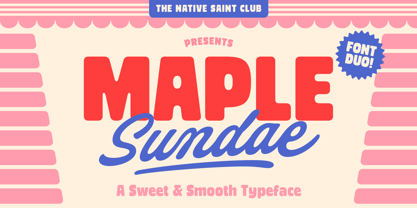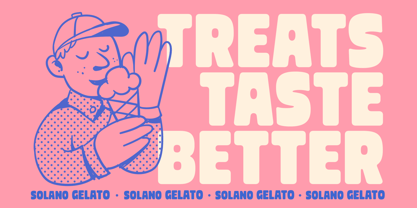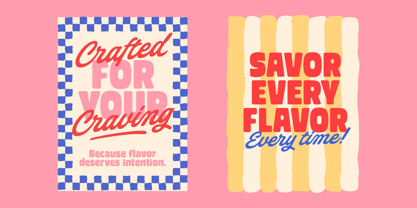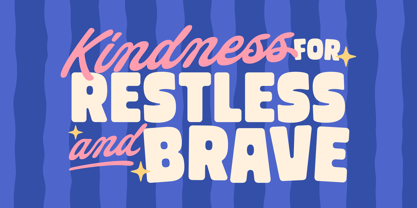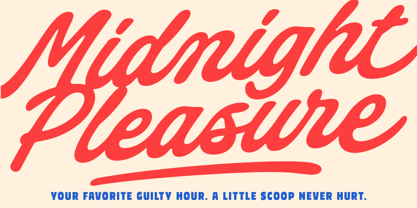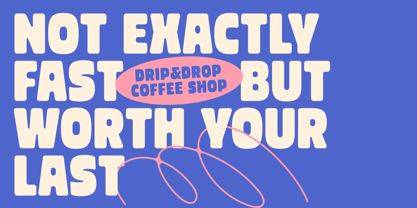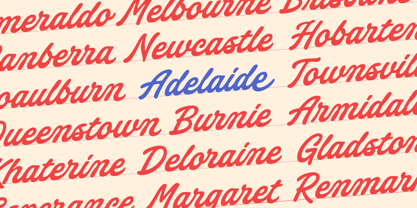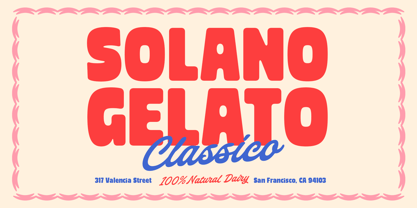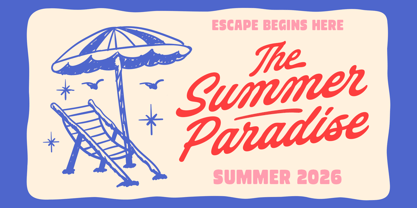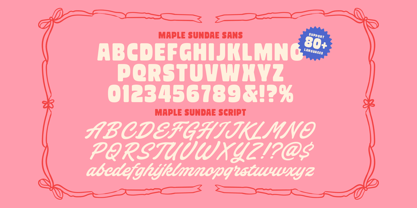
TNSC Maple Sundae
by The Native Saint Club
The TNSC Maple Sundae Font Family was designed by Bagas Ferdiansah, Septianto Nugroho and published by The Native Saint Club. TNSC Maple Sundae contains 2 styles and family package options. More about this family
TNSC Maple Sundae, a sweet and smooth font duo! With its chunky, rounded sans and a flowing, handwritten-style script, this playful pair brings just the right mix of bold and friendly. Perfect for product labels, greeting cards, social media posts, branding projects, logo designs, packaging, quotes, and more.
Designers: Bagas Ferdiansah, Septianto Nugroho
Foundry: The Native Saint Club